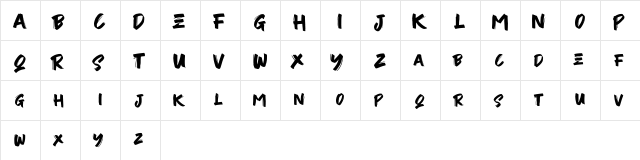
JustBrush Regular
Design Context for JustBrush Typeface
JustBrush flows with the natural rhythm of handwritten lettering, making it ideal for designs that call for warmth and personal expression.
Font Pairing: Combine JustBrush with a simple geometric sans for maximum contrast — the tension between flowing curves and clean structure is a classic typographic pairing.
Pro Tip: Pair JustBrush with a clean sans-serif for supporting text. The contrast between fluid script and geometric structure creates an elegant typographic hierarchy.